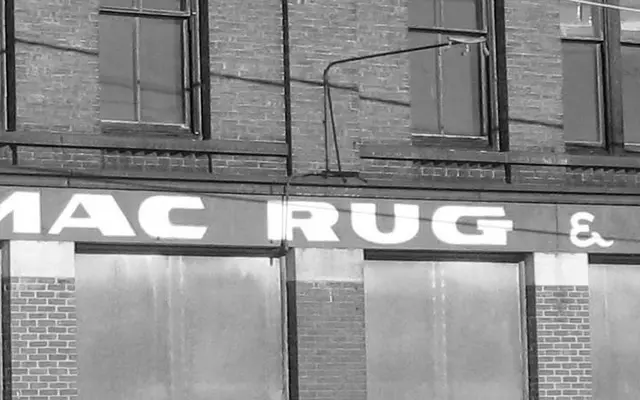
Condor
David Jonathan Ross · David Jonathan Ross
A high-contrast display sans in five widths and six weights, drawing on Art Deco lettering and the thick-and-thin commercial signage of early industrial America.
Conceived after David Jonathan Ross encountered thick-and-thin commercial lettering on mill buildings in Lowell, Massachusetts, Condor merges that plain stressed structure with the elegance of Art Deco design. Sixty static styles span five widths from Compressed to Extended and six weights from Extra Light to Black, each with matching italics that use an extreme angle rather than cursive forms. A variable font beta is also available, giving access to weight, width and italic axes in a single file.
A display-only sans with pronounced thick-and-thin stroke contrast drawn from Art Deco lettering traditions. Its extreme contrast, open forms and steep italics place it firmly in the display category rather than a functional grotesque.